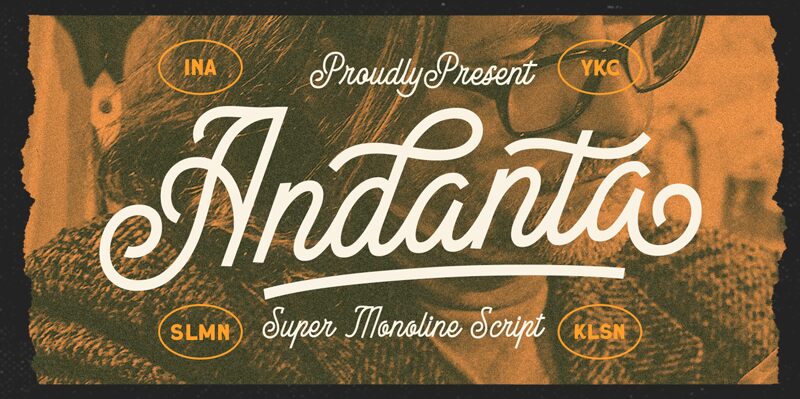
Andanta font by Letterhend Studio captures the essence of elegant handwriting, blending fluid strokes with artistic flair. Its handwritten style exudes a personal and inviting charm, perfect for adding a touch of warmth to your designs. The bold presence makes it a standout choice for eye-catching headers, branding projects, and personalized invitations.
Whether you're looking to craft memorable logos or enhance social media graphics, Andanta offers versatility and style. As a free font available for download, it's an accessible tool for both professionals and hobbyists seeking to elevate their creative work with sophistication. Let Andanta's graceful curves inspire your next project and bring a unique voice to your visual storytelling.